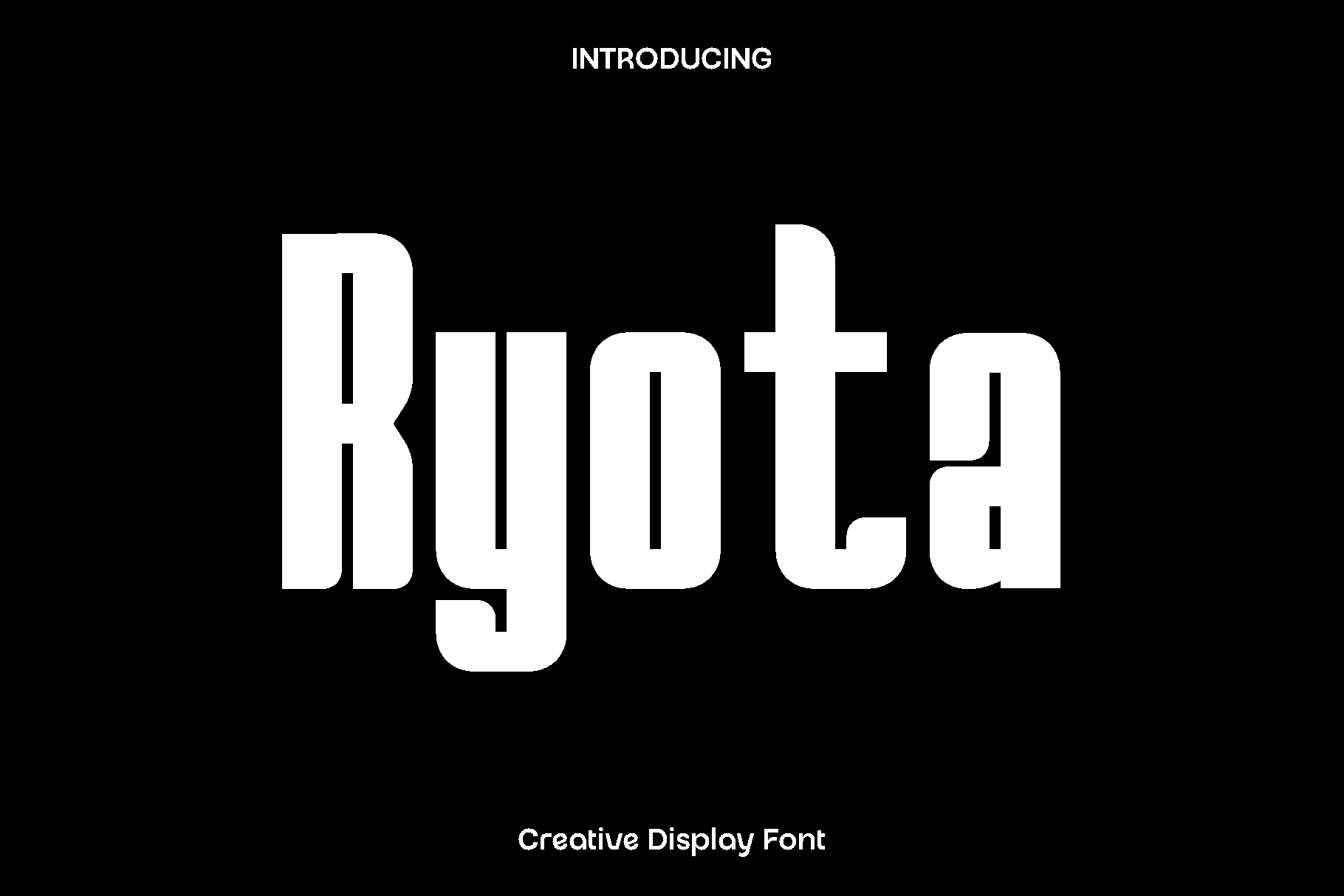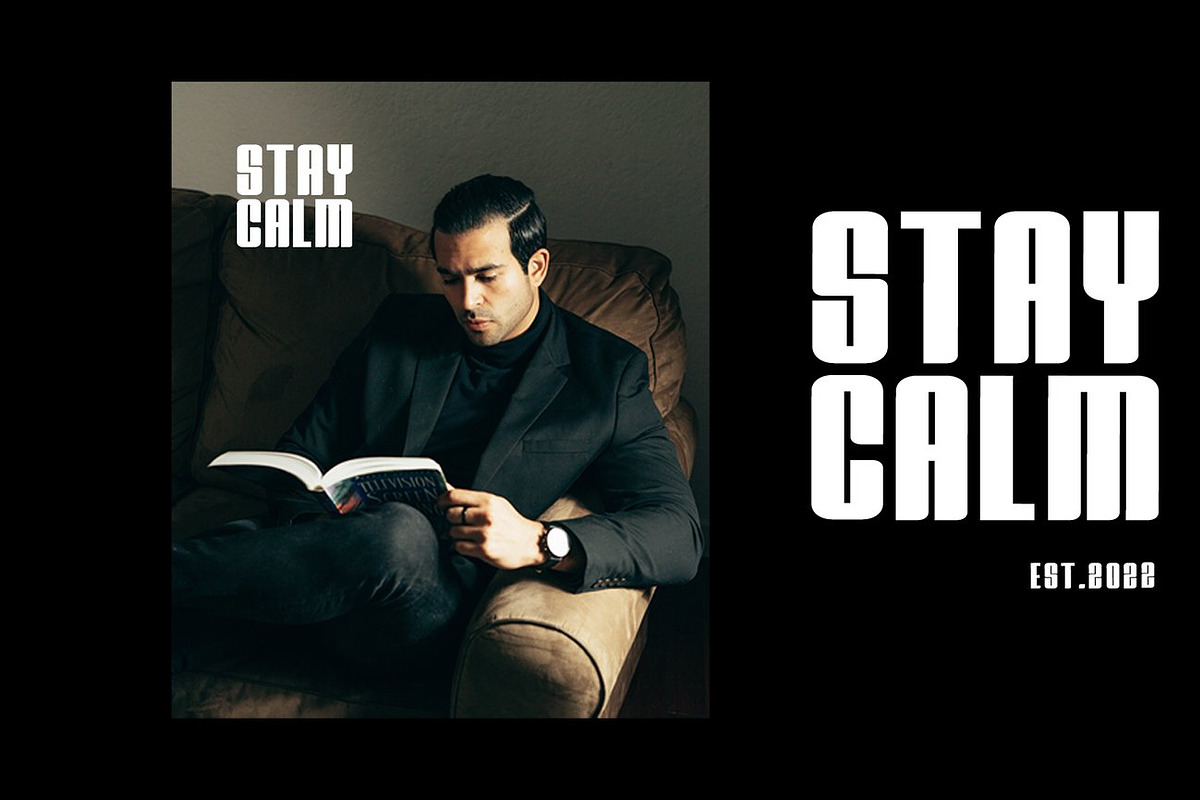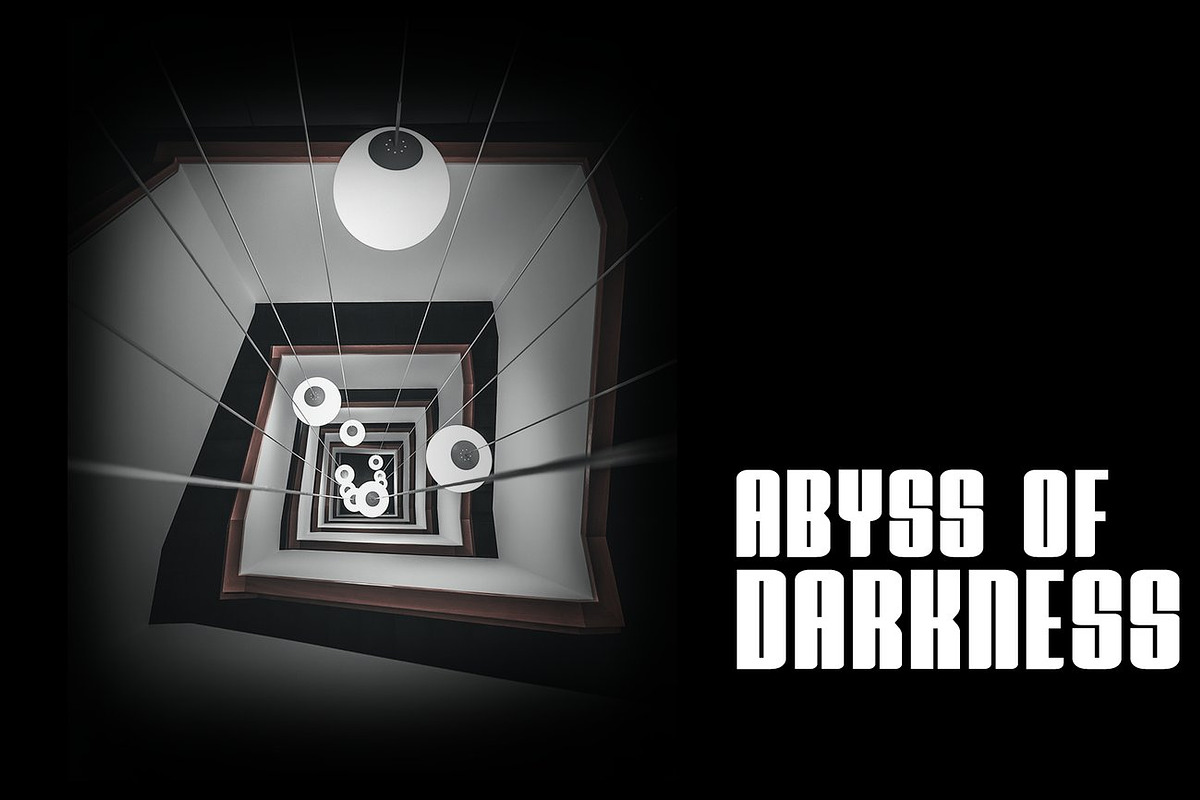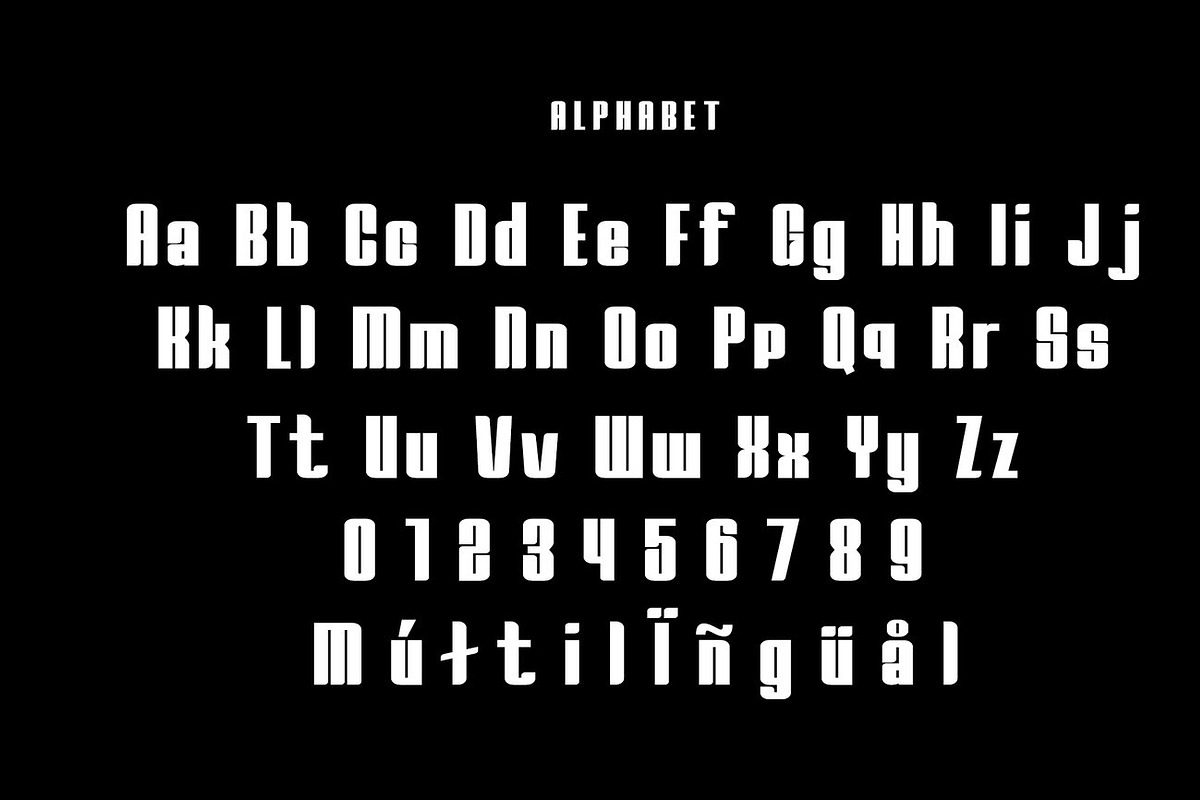
Ryota - Creative Display Font
Ryota is a modern display font created to bring character, confidence, and creative energy into your designs. Designed with a bold yet approachable style, Ryota reflects a balance between playful expression and clean structure. Its all caps letterforms are crafted to feel strong and eye catching, making every word stand out with personality and charm.
This font shines across a wide range of creative projects. Ryota is perfect for branding, handmade crafts, home decor designs, invitations, posters, stickers, and Procreate artwork. Its clear shapes and consistent rhythm make it easy to use while still delivering a distinctive visual impact. Whether applied to digital graphics or physical products, Ryota adds warmth and creativity to every design.
Ryota feels versatile, friendly, and expressive. It was designed for creators who want a font that adapts effortlessly to modern lifestyles and artistic projects. With multilingual support, numbers, and essential punctuation included, Ryota is a reliable choice for both personal and commercial use. Let Ryota enhance your work with a bold style that feels creative, functional, and memorable.
Ryota Font Features:
• All caps display characters
• Numbers and basic punctuation
• Multilingual language support